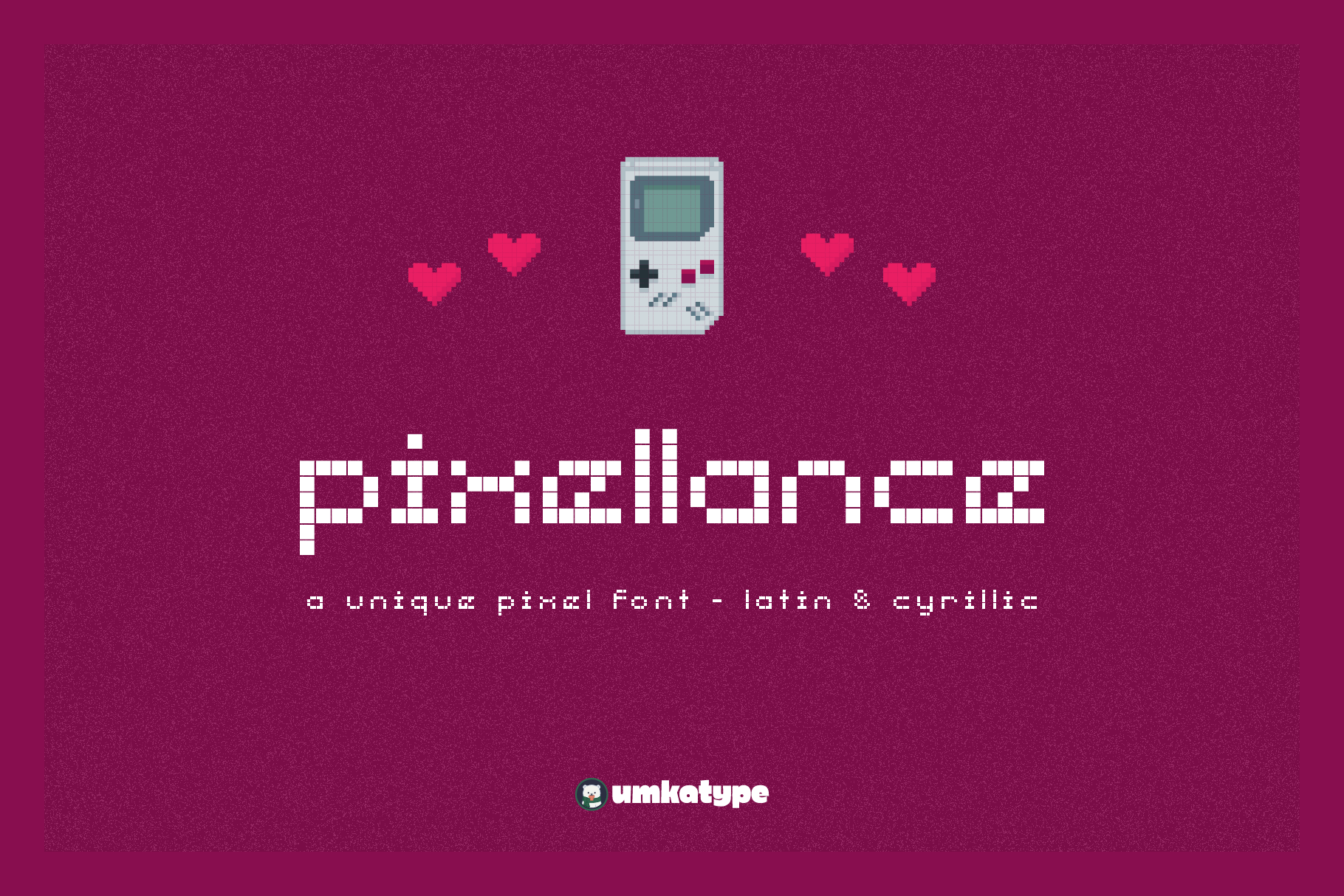
Pixellance Game Font
Pixellance - A Display Font
- Pixellance is a carefully crafted font.
- Multilingual: It has Extended Latin and Extended Cyrillic letters.
Pixellance created for games, web design, branding and social media works.